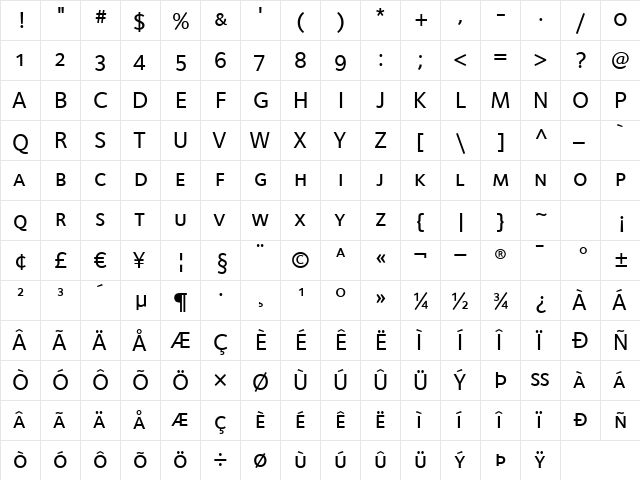
FoundrySterling-MediumExpert Regular
| Designer | The Foundry |
Design Context for FoundrySterling-MediumExpert Typeface
FoundrySterling-MediumExpert is a composed and adaptable typeface that performs quietly and consistently across a wide range of design contexts.